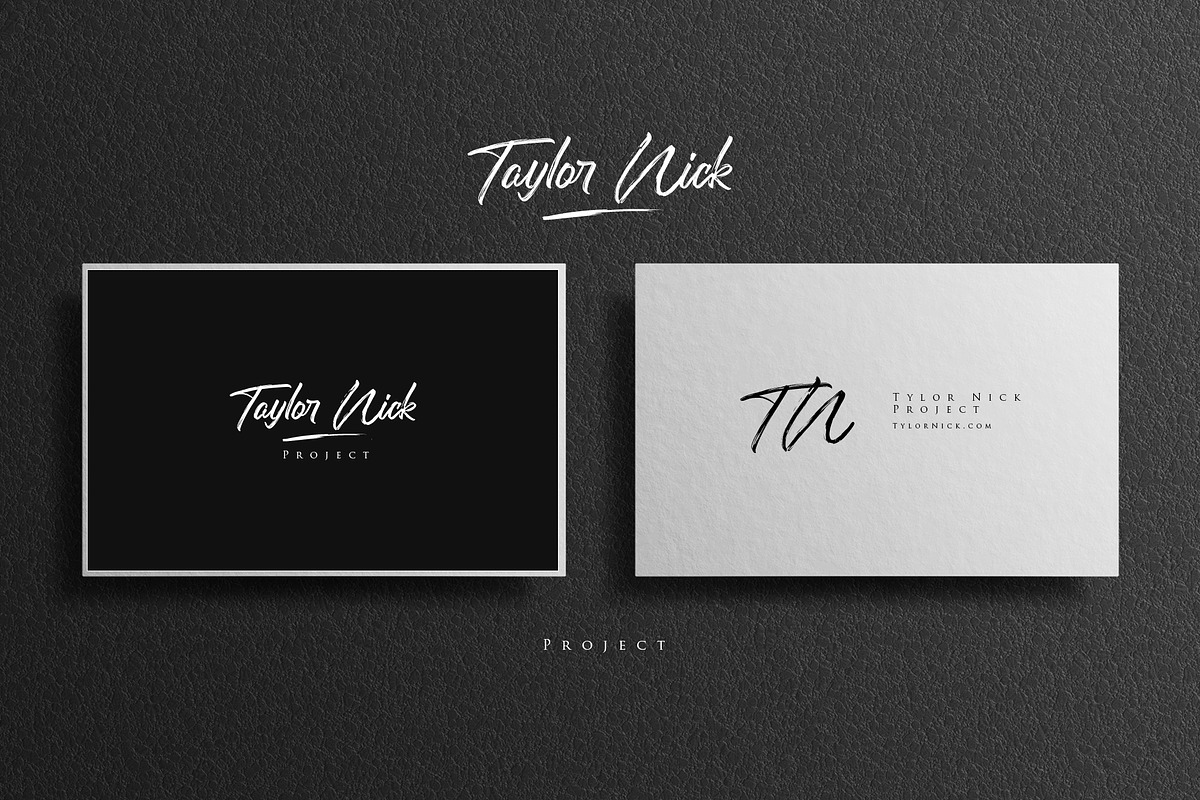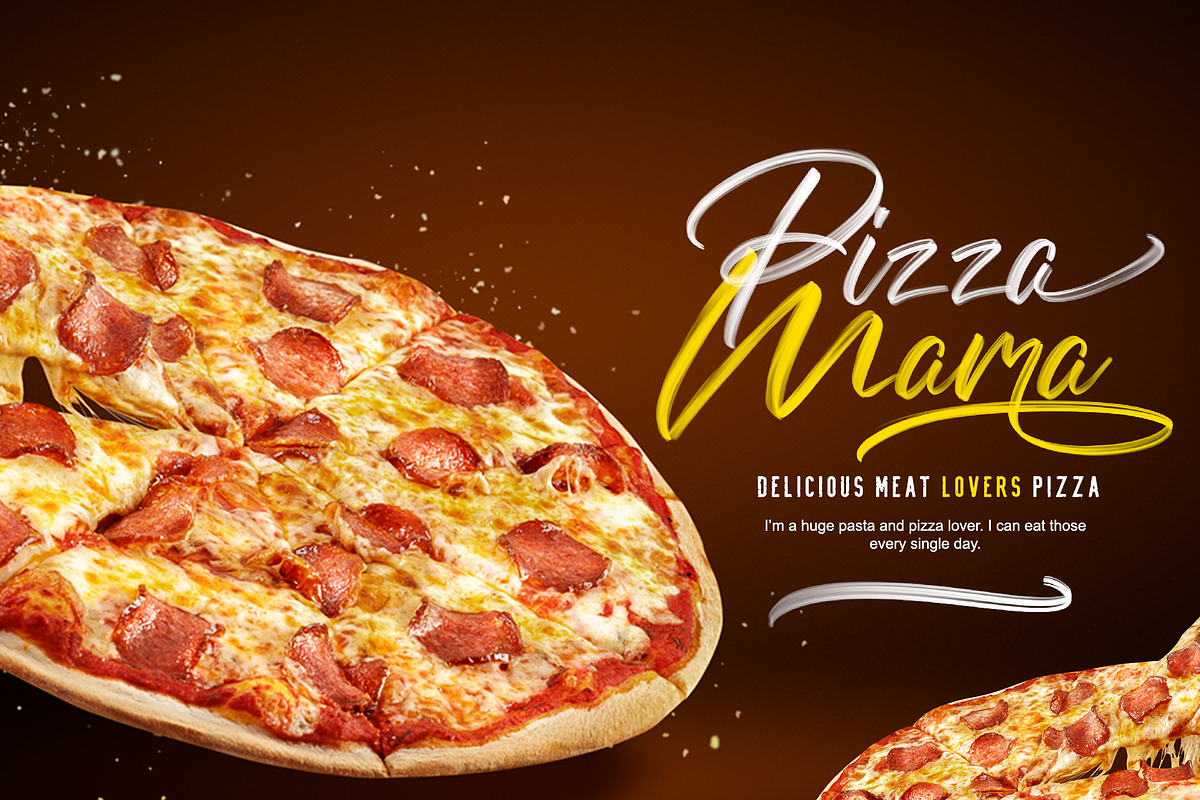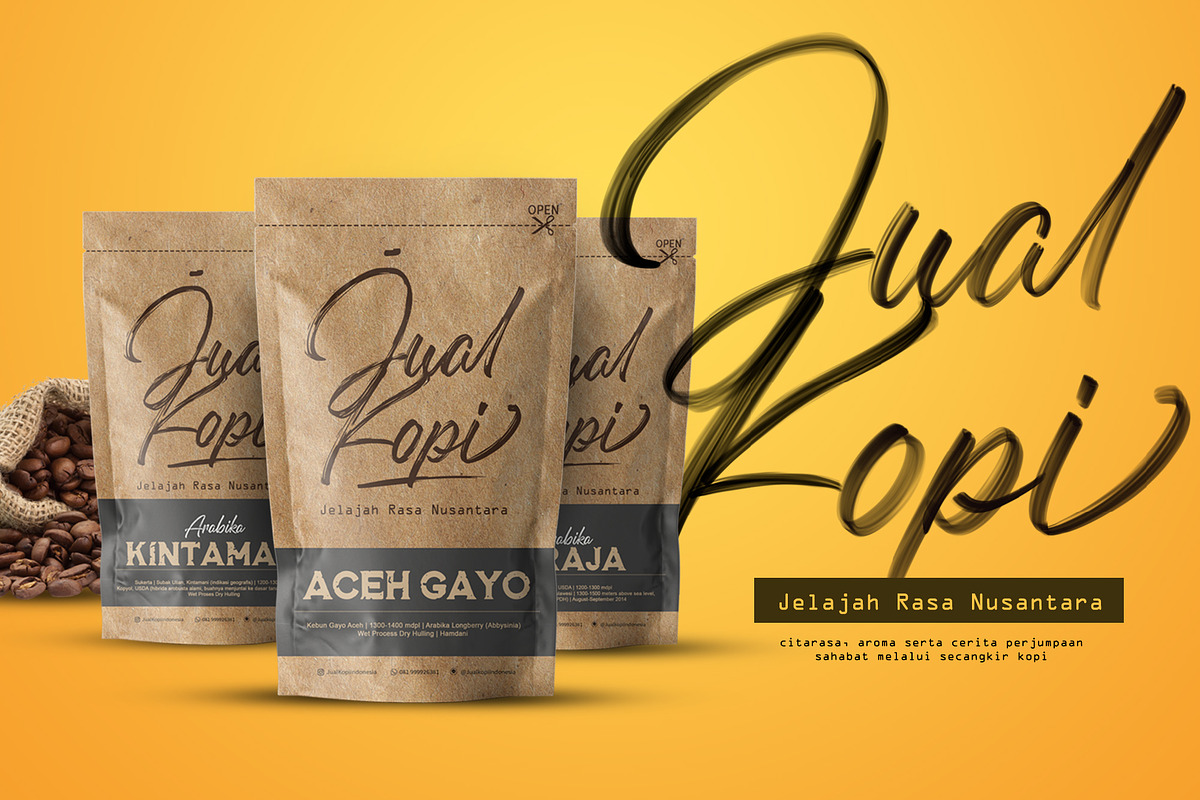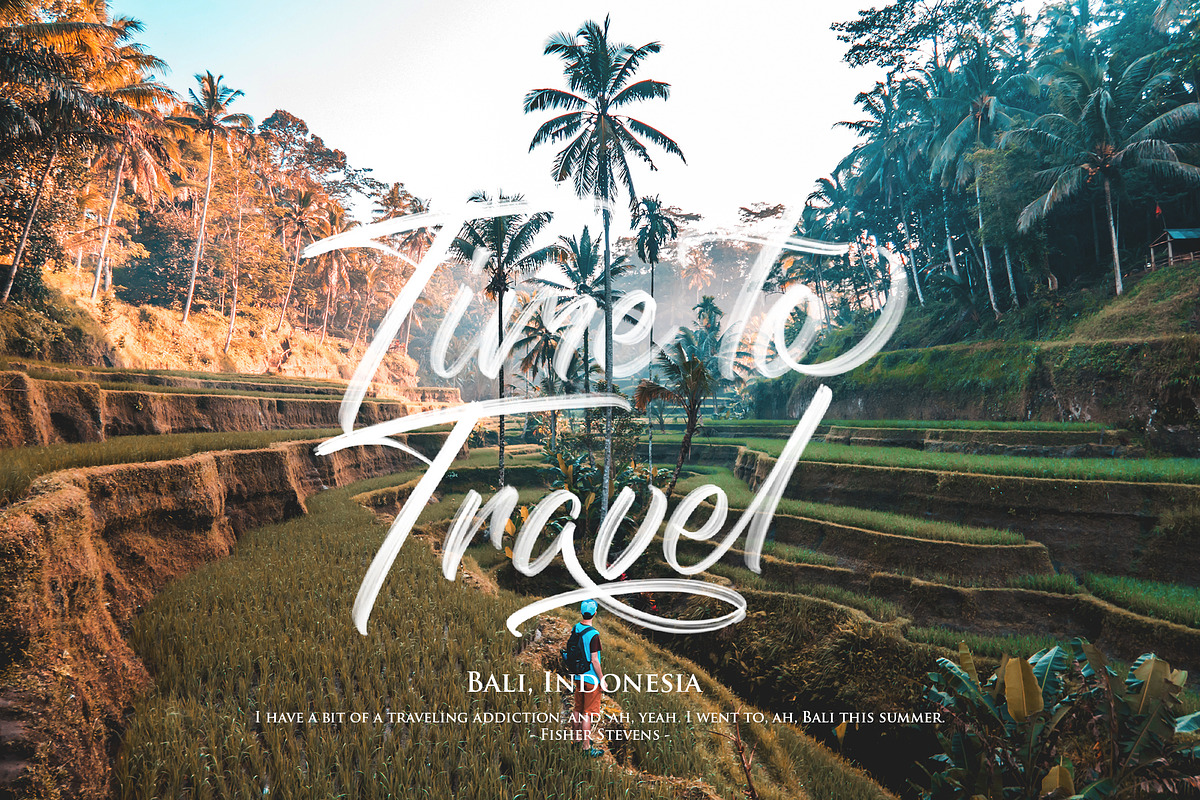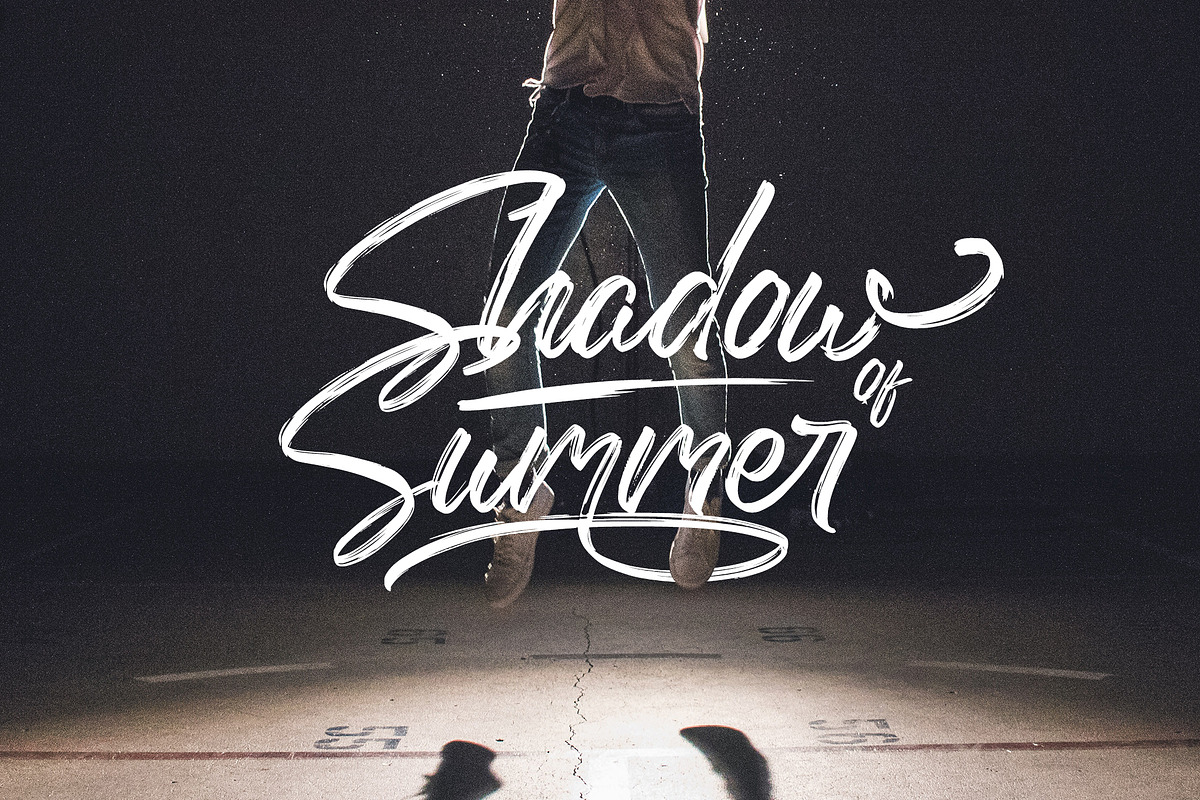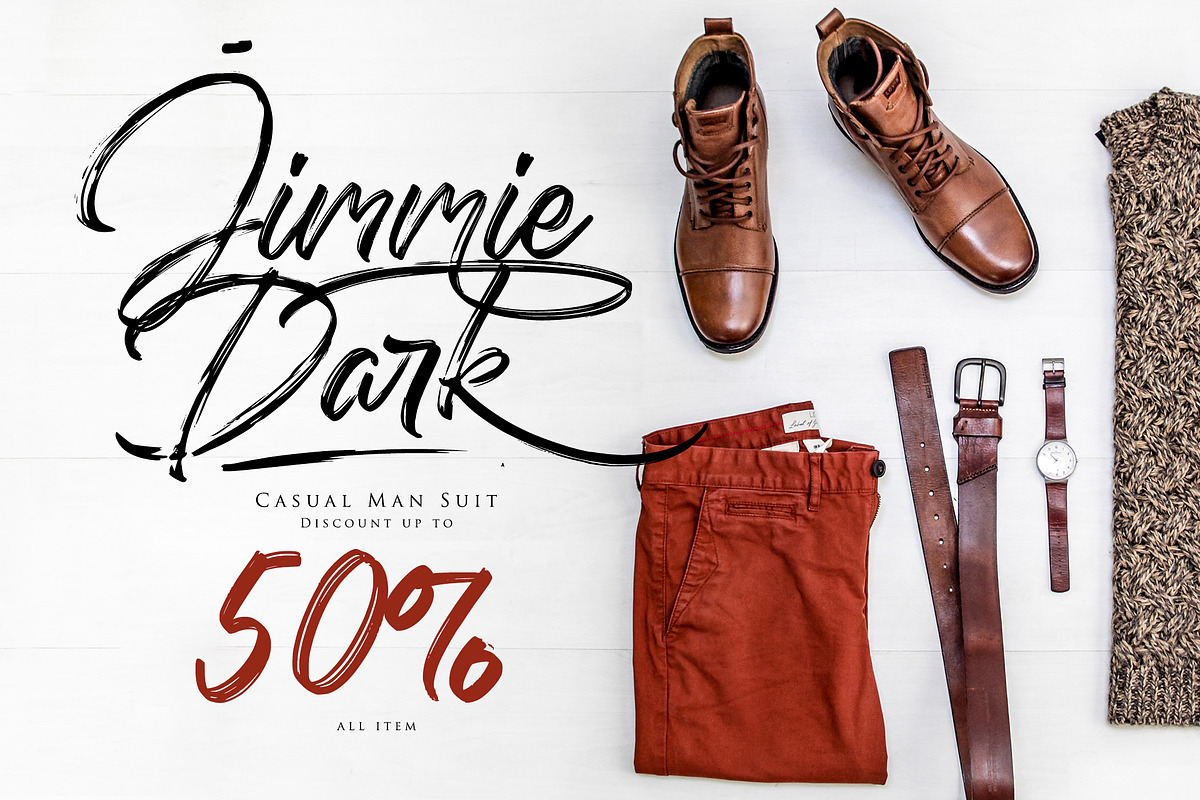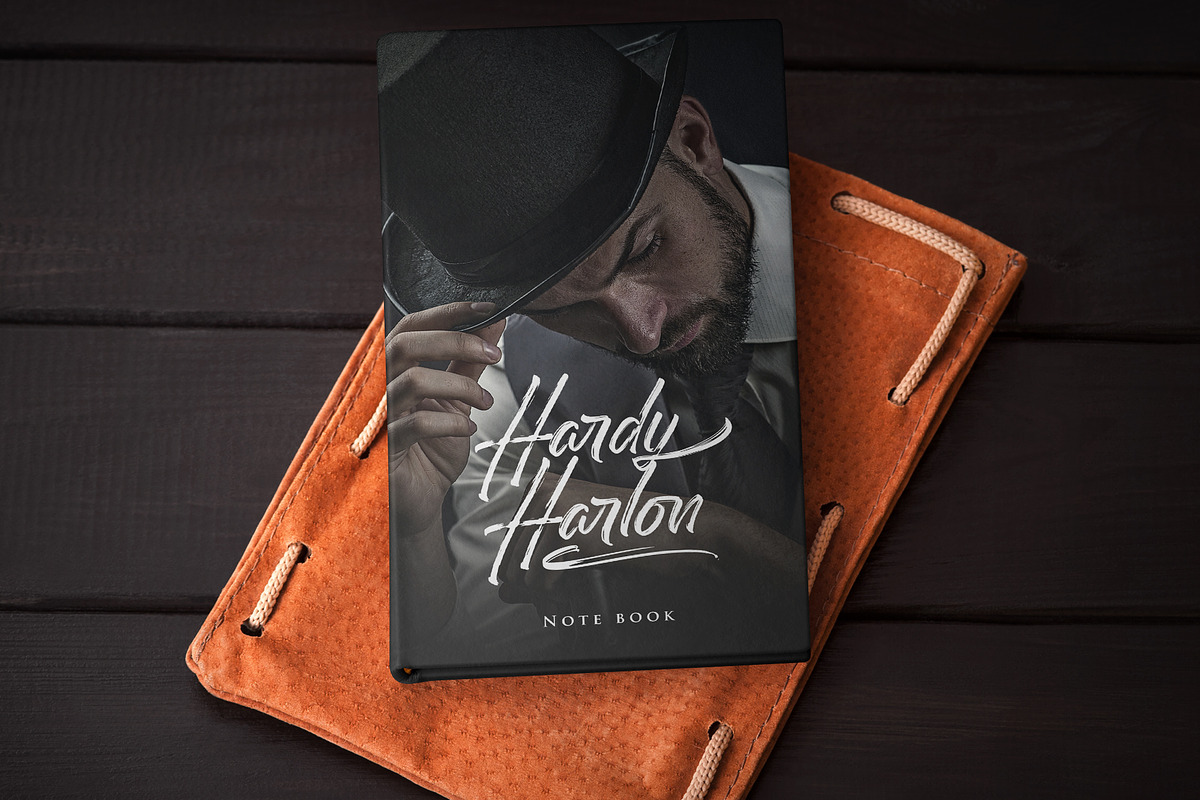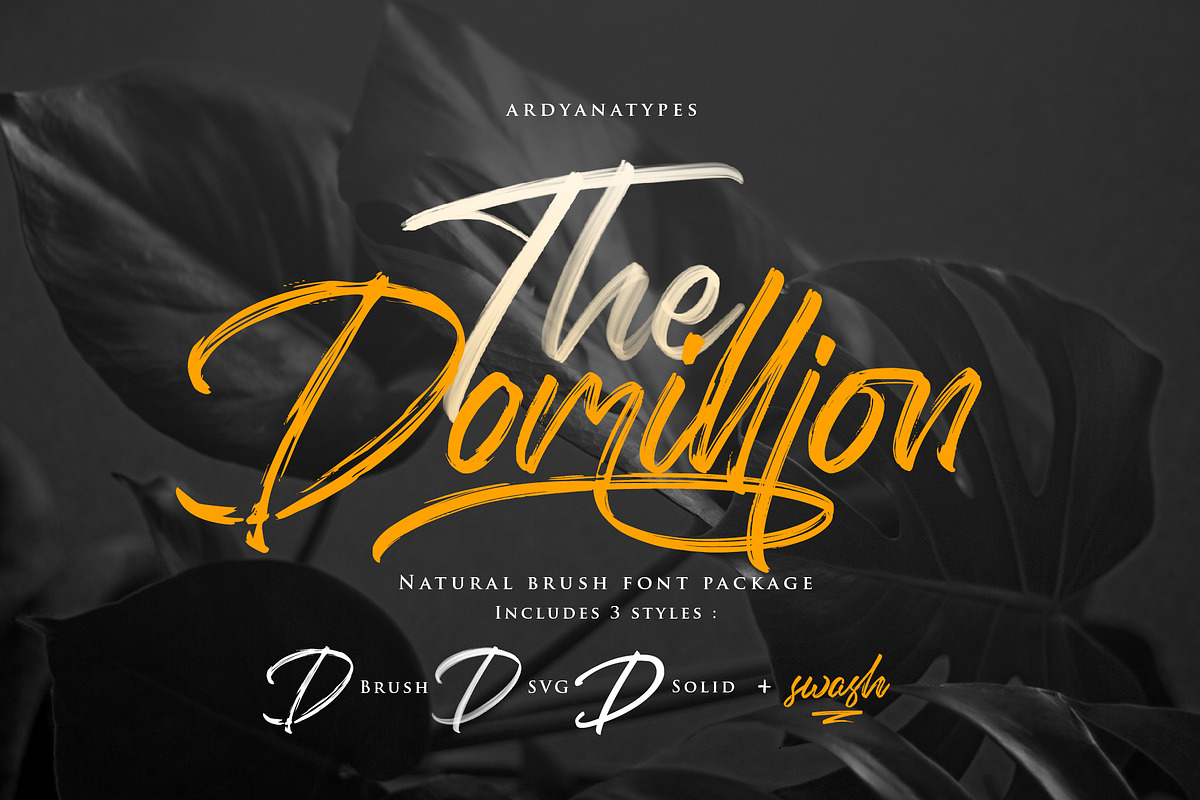
The Domillion Brush Font
Introduce Domillion Brush Font
Domillion is made with natural hand scratches that are perfect for beautifying your design. Domillion comes with 3 variations of accents, submitted Brush, SVG, and Clean, each of which has its own charm. Domillion Brush has a collection of very natural shapes that give a real touch of natural graffiti to each of your designs, while Domillion SVG has a more solid and elegant typical stroke from domillion brushes making the SVG domillion look more masculine, and the last is Domillion Clean. Become a complement to the Domillion Brush, which can give you a choice of sharper characters who are also sticky with Alternative characters and Swahs to beautify each stroke from domillion. Domillion is the perfect choice for posters, signatures, logos, quotes, album covers, business cards, product designs and other design projects with elegant charm that is sharp, classy, easy to read, stylish and unforgettable.
3 Variation Domillion Brush Font
Add more style to each font with OpenType Features - stylistic alternates, lowercase initial form and final form, ligatures.
The perfect font choice for powerful projects - watermarks, signatures, photography, logos, business cards, quotes, album covers.
- Domillion comes with 3 variations of accents, submitted Brush, SVG, and Clean, each of which has its own charm.
- Become a complement to the Domillion Brush, which can give you a choice of sharper characters who are also sticky with Alternative character
Why The Domillion Brush Font is worth a look
The Domillion Brush Font by Ardyanatypes fits naturally into Branding, posters, packaging, typography.